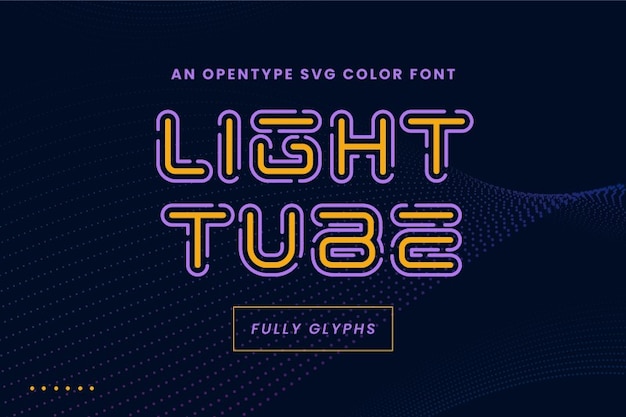
Are you looking for a full glyph font? If so, Light Tube is the one! An OpenType SVG color that will add a trendy look to your projects. Download it now and start creating!